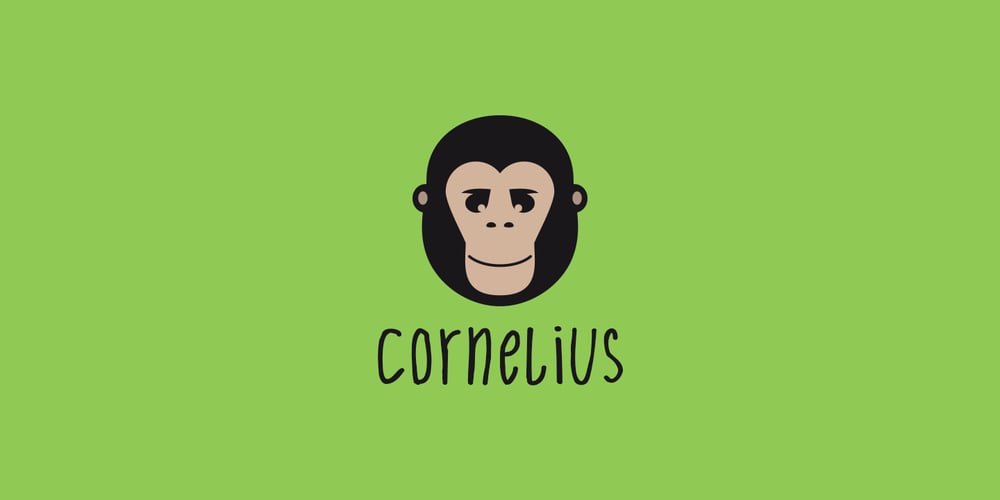
Cornelius Font Family was designed by Daniel Bak and published by Artcity. Cornelius contains 3 styles and family package options. Cornelius is a playful hand-drawn font family designed by Daniel Bak (Artcity). It is available in three handy weights: regular, bold and screaming. It contains international language accent marks and diacriticals, including Greek and Cyrillic in both OTF and TTF formats. Font family name is inspired by the main male ape character from the 1968 science fiction film Planet of the Apes and Pierre Boulle novel of the same name. Boulle published his La Planète des singes in 1963, which was originally translated in 1964 as Monkey Planet by Xan Fielding, and later re-issued as Planet of the Apes. Dr. Cornelius is a chimpanzee archaeologist and historian who appears in the original novel, and also the first three installments of the classic movie series, from the 1960s and 1970s. He was portrayed mainly by actor Roddy McDowall, but also by David Watson.